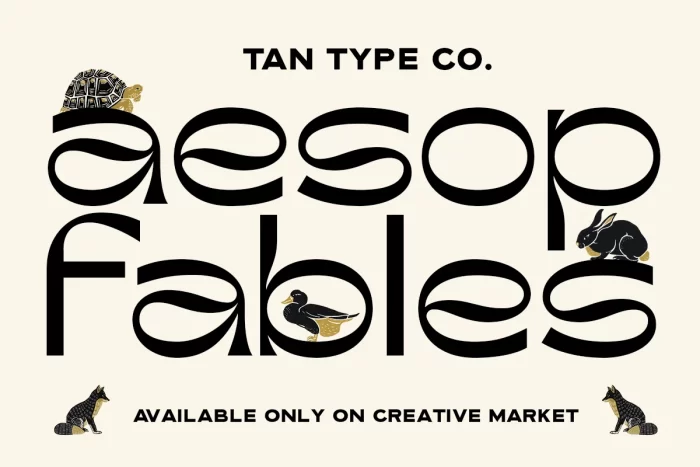
Tan Aesop is a reverse contrast serif typeface with a modern and clean look. Perfect to be used in any of your design projects. It looks stunning on wedding invitations, thank you cards, quotes, greeting cards, logos, business cards, and every other design which needs a classy touch.